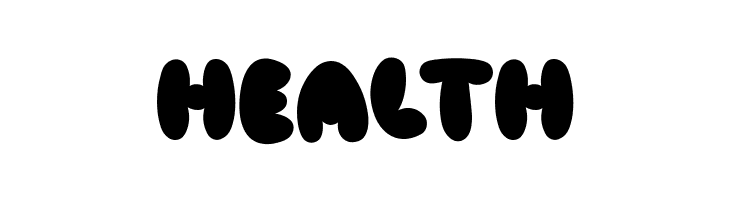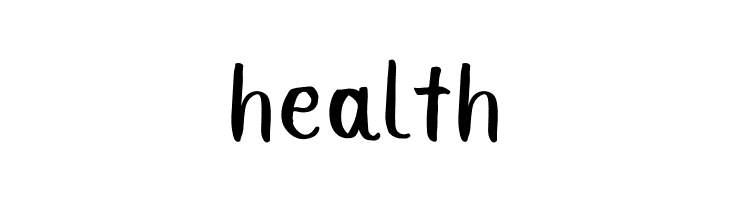
A playful, handwritten font with rounded, uniform letterforms.
A bold, playful font with rounded, hand-drawn uppercase letters.
A playful, handwritten font with bold, irregular strokes and a casual feel.
A playful, handwritten font with tall, narrow letters and a casual style.
A playful, bold font with rounded, bubble-like characters.
A bold and expressive brush script font with dynamic strokes.
A bold, rounded font with a friendly and modern appearance.
A modern, rounded font with a clean and approachable design.
A bold, semi-rounded font with a modern and approachable style.
A modern, geometric font with semi-rounded edges and consistent weight.